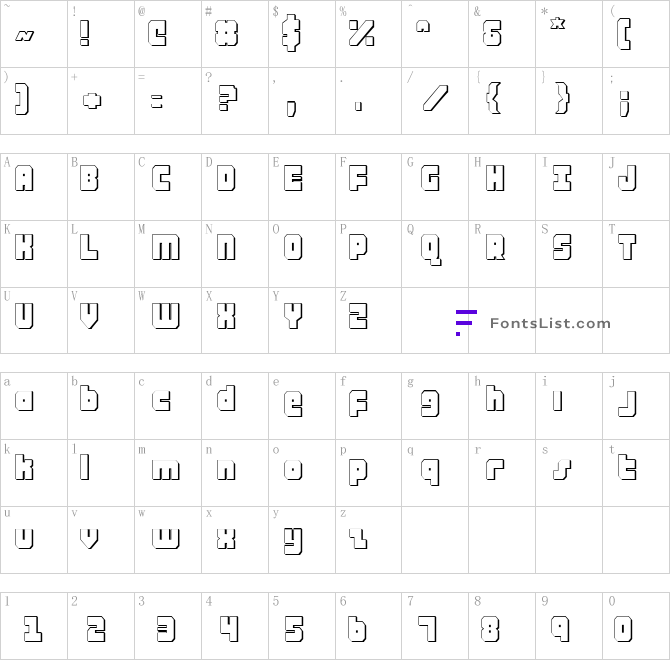
- Font Name:Alpha Taurus 3D
Alpha-Taurus-3D.ttf is a very beautiful artistic font, Alpha-Taurus-3D.ttf is widely used in the design and printing of various books and pictures,Alpha-Taurus-3D.ttf has a strong visual impact,Alpha-Taurus-3D.ttf is a commonly used font in newspapers, magazines and books, and is used in posters, e-commerce Poster design, store design, logo design, font design and other fields.Alpha-Taurus-3D.